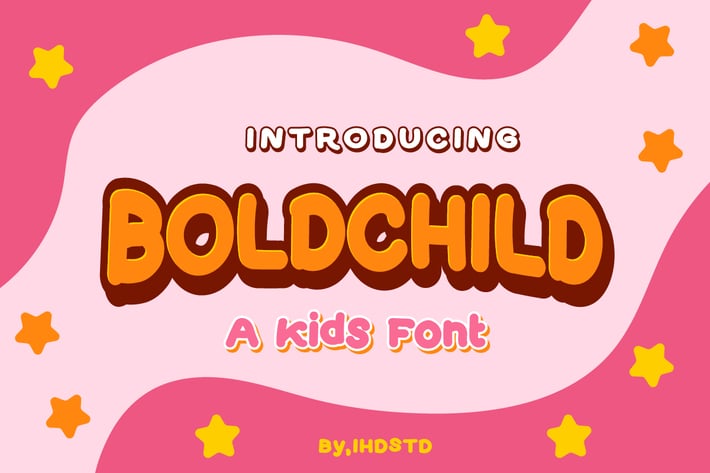
Boldchild Kids Typeface
This is our newest font, which is called Boldchild, this font is inspired by the old vintage designs.
Boldchild is a great font for kids branding, packaging, posters, titles, book covers, flyers, t-shirt designs and etc.